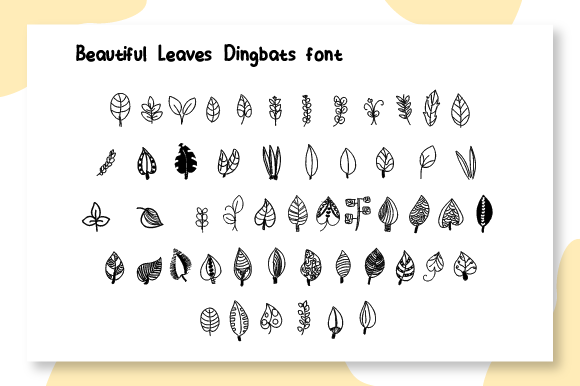
Unlocking the Beauty of Fall with Beautiful Leaves Font
There’s something magical about the first days of fall. The air is crisp, the leaves are ablaze with color, and the world feels like a canvas waiting to be filled with creativity. As a designer, you know this feeling all too well – the urge to capture the essence of the season and bring it to life in your work.
That’s where Beautiful Leaves Font comes in – a lovely dingbats font that embodies the spirit of nature and adds a touch of whimsy to any design. With its delicate, hand-drawn leaves and branches, this font is the perfect way to add a seasonal touch to your fall designs.
Whether you’re working on a holiday card, a brochure, or a social media post, Beautiful Leaves Font is a valuable addition to your design toolkit. Its natural charm and beauty make it a must-have for any designer looking to elevate their work and connect with their audience on a deeper level.
- Unique Characteristics: The Beautiful Leaves Font features intricate, hand-drawn illustrations of leaves, creating a whimsical and natural feel in any design.
Designer Review: Beautiful Leaves Font
Overall, I have mixed feelings about the “Beautiful Leaves Font”. While it has its unique charm, it also has some limitations that may make it less suitable for certain projects.
- Unique design: The “Beautiful Leaves Font” has a distinctive, organic feel that can add a touch of elegance to designs.
- High-resolution images: The font’s high-resolution images ensure that it looks crisp and clear, even at larger sizes.
- Customizable: The font can be customized to fit various design needs, with options for color and size adjustments.
- Limited font styles: The font only comes in a single style, which may limit its versatility in certain designs.
While the “Beautiful Leaves Font” has its unique charm, its limitations may make it less suitable for certain projects. However, for those who need a high-end, custom font for a specific design, it may be worth the investment.
The Beautiful Leaves Font is ideal for:
– Garden-themed designs and logos
– Nature-inspired art and graphics
– Whimsical and playful branding
To get the most out of Beautiful Leaves Font, try combining it with watercolor effects or distressed textures for a unique look. Experiment with different font sizes and colors to create visual interest.
Yes, the Beautiful Leaves Font includes a range of special features, including ligatures, swashes, and ornaments. These can be accessed using your design software’s font panel or by using the built-in ligature and swash tools.